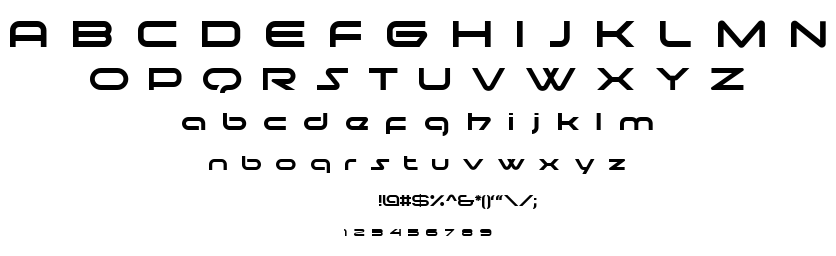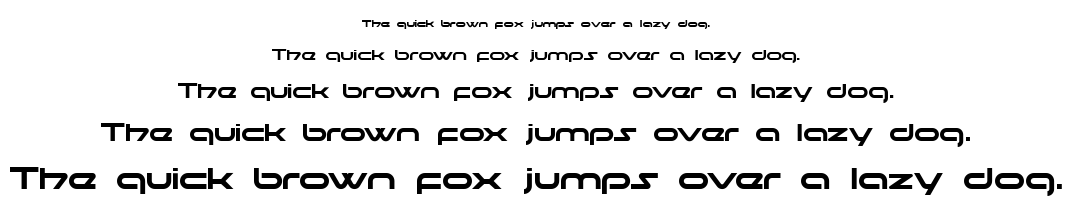
moonhouse is a wide and geometric font. Its quirkiness comes from a combination of predominant rounded forms and angled sharp elements that provide a clean and futuristic look.